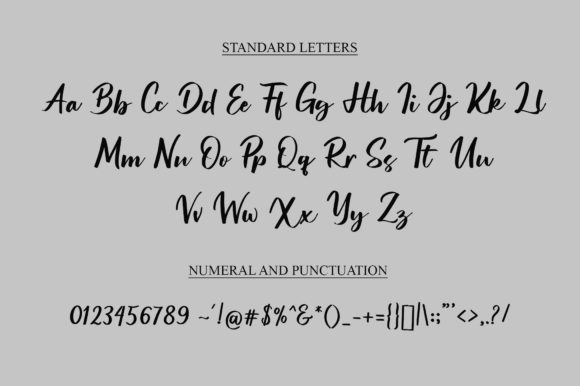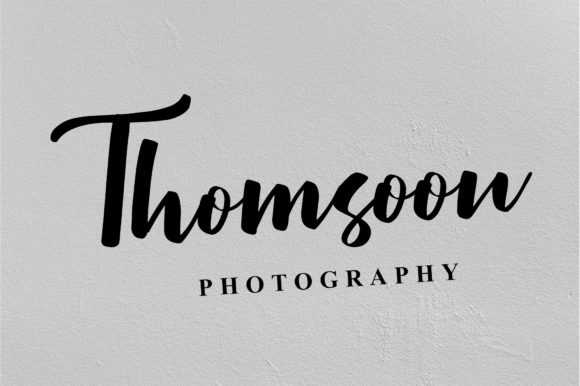
Silver South Font
db-ku.com - Script & Handwritten -- Silver South is a cursive and sweet calligraphy typeface with characters that dance along the baseline. It has a casual, yet elegant touch. Fall in love with its incredibly versatile style and use it to create spectacular designs!